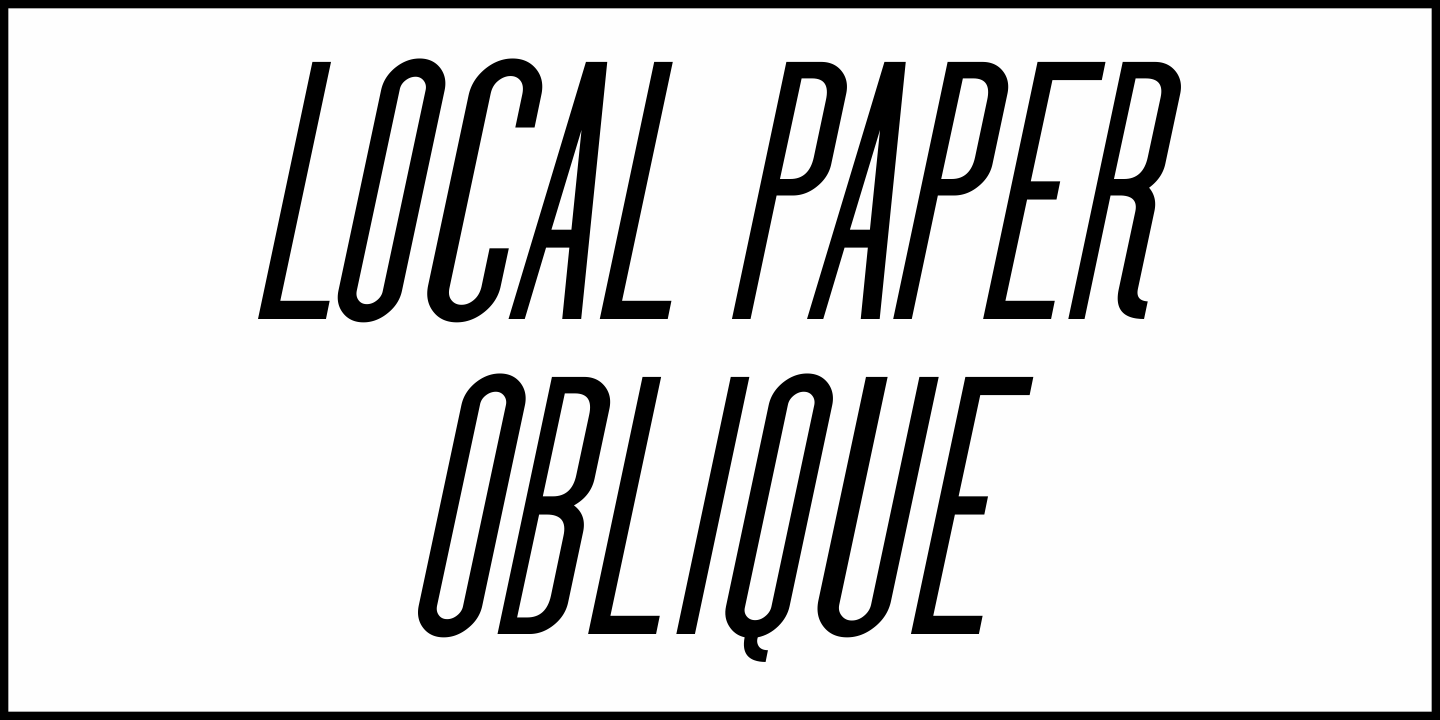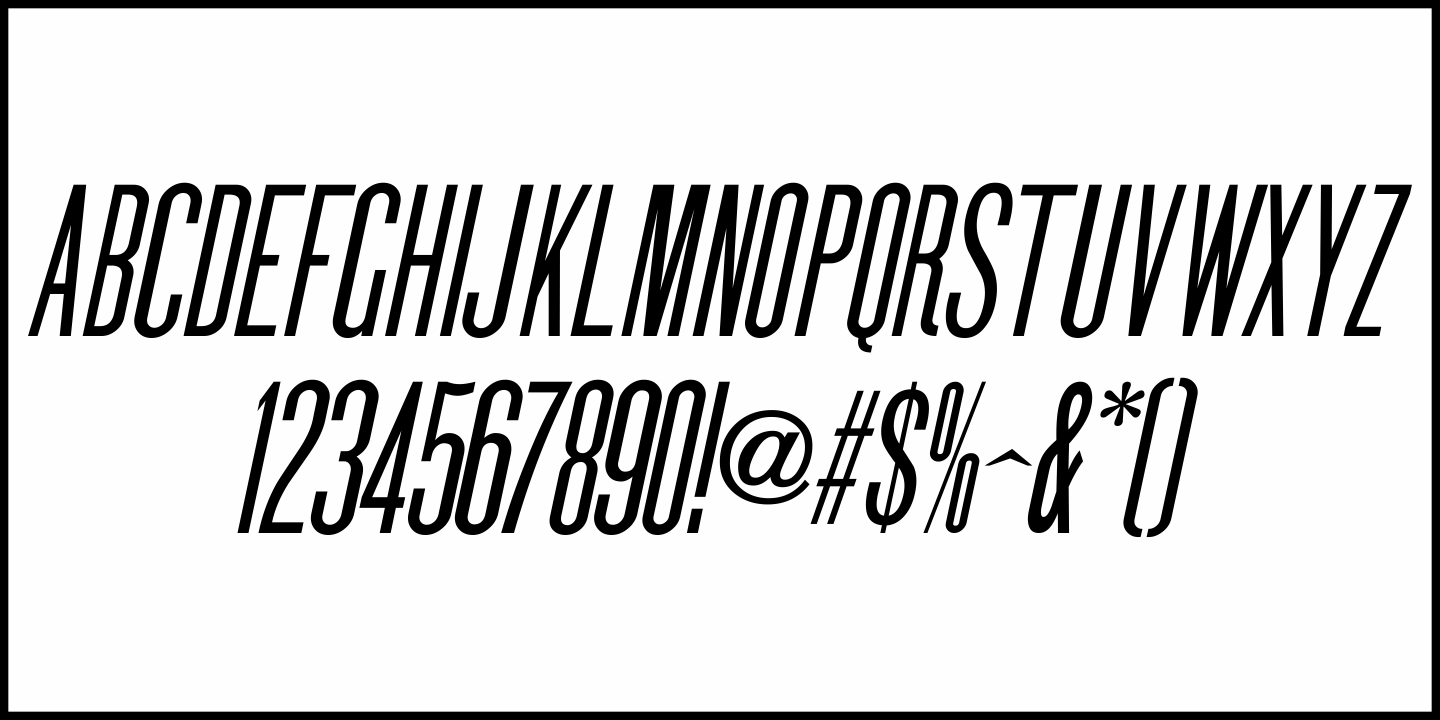
Local Paper
The headline set in wood type from the Brooklyn Daily Eagle edition of March 26, 1911 inspired Local Paper JNL, which is available in both regular and oblique versions.
This condensed sans serif grotesk was popular in the late 19th and early 20th centuries.
Local Paper JNL Regular by Jeff Levine Fonts